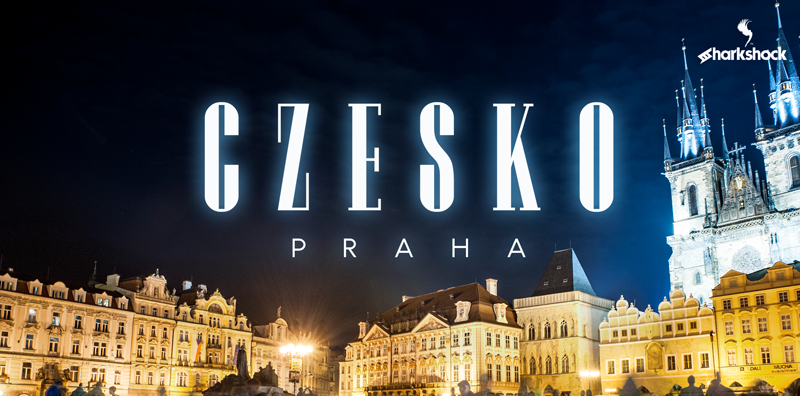
OTF: Czesko by Dennis Ludlow Sharkshock 2018 all rights reserved dennis@sharkshock.net Tall, dark, and handsome; Czesko is a fancy display serif with a timeless, yet elegant look. The repetition of key features ensures contrast in line weight to provide high visibility at smaller sizes. Vertical emphasis and tight spacing make it a good choice for areas with limited workspace. Try all caps for a luxury logo or branding in the fashion industry. Other suggested uses include magazines or movie posters. Basic Latin, extended Latin, diacritics, Cyrillic, punctuation, fractions, ligatures, and kerning are all included in the full version. The demo features basic Latin, limited punctuation, and numbers. The full version is $25 for personal use only. Just go to www.sharkshock.net/pay and specify which font you�d like. Please note this $25 does NOT constitute a contract for commercial use. For information on commercial licensing please visit www.sharkshock.net/license. Thank you for your support! visit www.sharkshock.net for more and take a bite out of BORING design! Tags: line, weight, luxury, brand, logo, elegant, fancy, serif, magazine, book, publishing, European, Cyrillic, French, German, Polish, Spanish, Russian, Latin, thin, contrast, art, square, Czech, style, book, tall, vertical, thick |